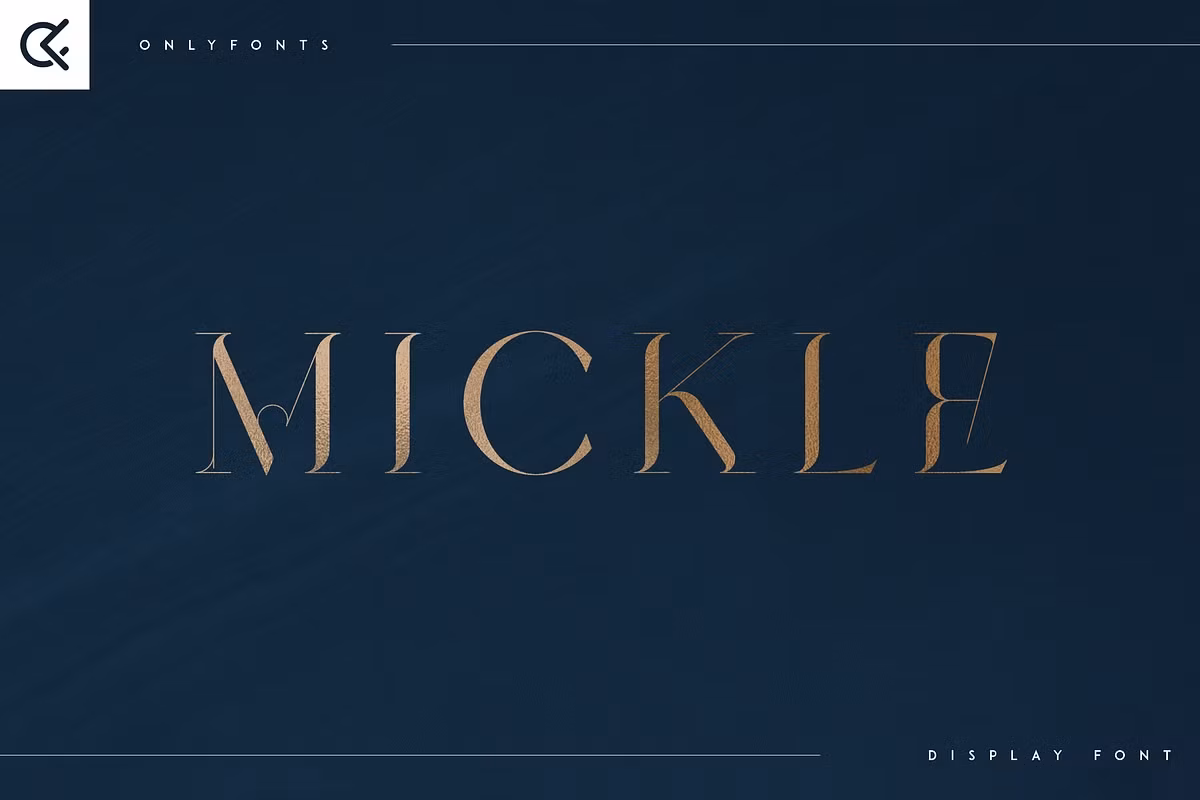
Mickle Font Free Download is a creative and bold display typeface that exudes modernity and artistic flair. With its strong lines, unique letterforms, and eye-catching design, Mickle is perfect for projects that need to make a statement, such as logos, posters, headlines, branding, and creative campaigns.
The font features uppercase letters, numerals, punctuation, and stylistic alternates, allowing for diverse typographic compositions that remain striking and legible. Its contemporary style makes it perfect for everything from artistic branding to stylish event materials.
Whether you're working on a modern brand, a creative ad, or a promotional poster, Mickle Font Free Download brings energy and style to your design. Feel free to use it for personal or mockup projects, and be sure to purchase the correct license for commercial use. Add bold creativity and visual impact to your typography with this dynamic display font.